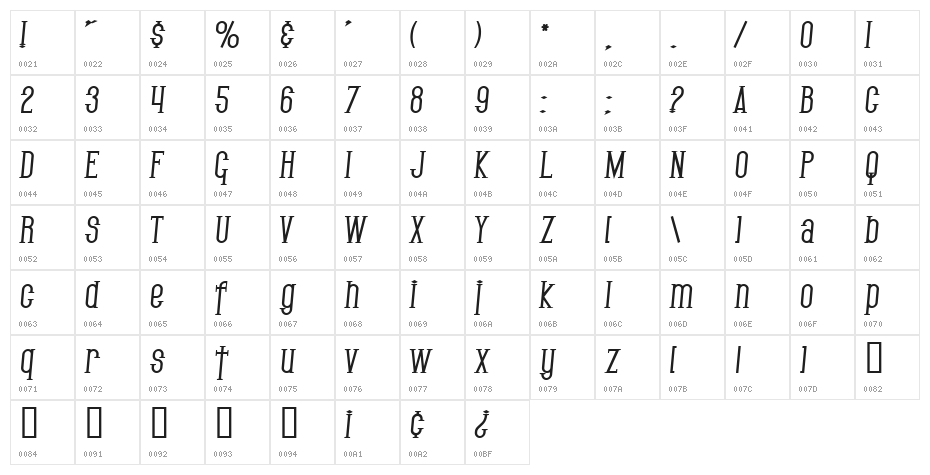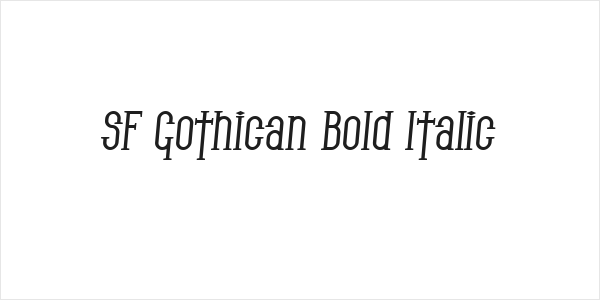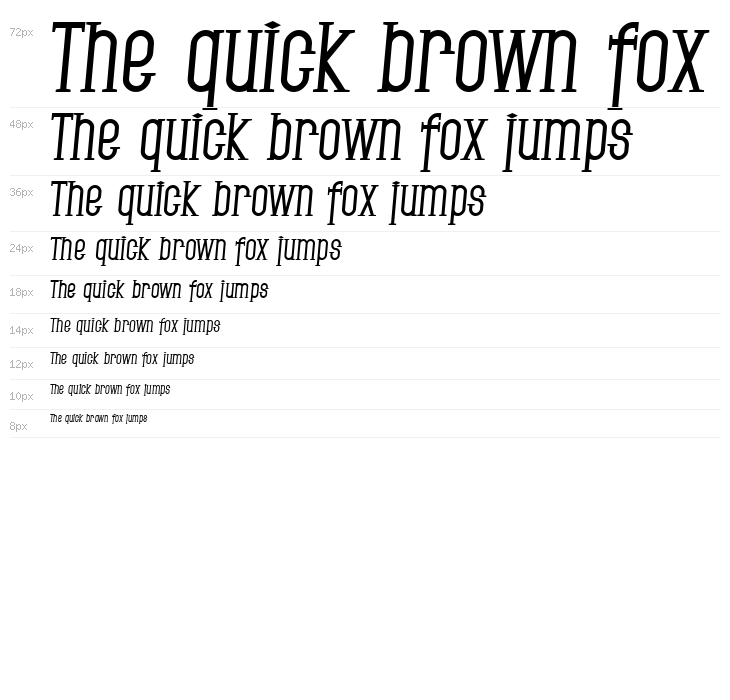
SF Gothican Bold Italic Font
SF Gothican Bold Italic Description
This font features a bold and italicized style with a modern twist. The uppercase letters are tall and slightly condensed, giving a strong and assertive appearance. The lowercase letters maintain a consistent height with a slight slant, enhancing readability while adding a dynamic feel. The numerals are uniform and align well with the overall design, ensuring clarity in numerical data. Special characters are distinct and well-integrated, providing versatility for various uses. The font's boldness and italic nature make it suitable for impactful headlines and attention-grabbing text.
| Proposed Projects | Ideal for branding, advertising, poster design, and editorial headlines. |